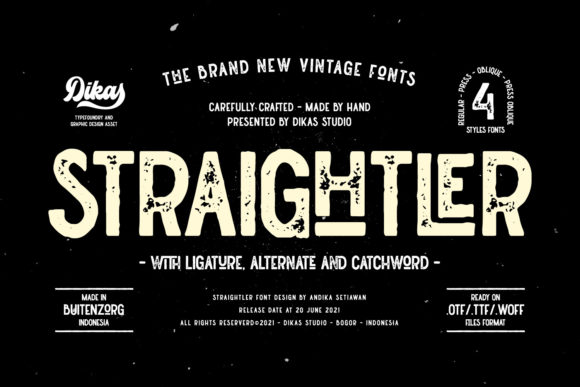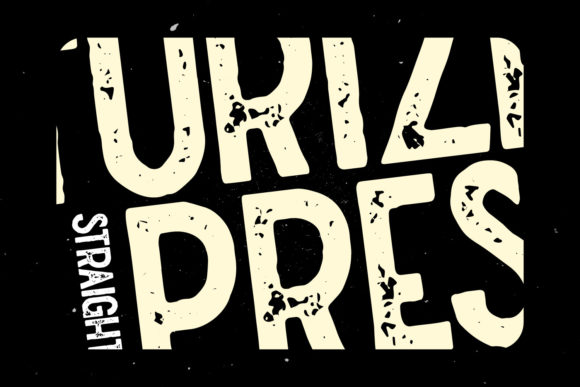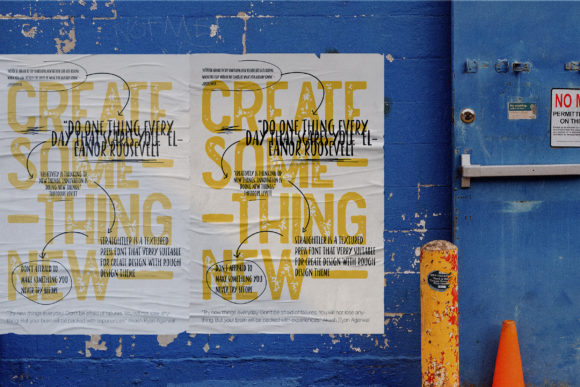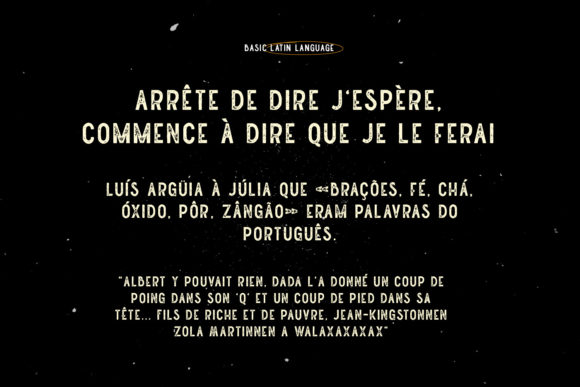
Straightler is a cool, rough styled and assertive display font. This font is imposing and features simple shaped letters, and as a result, it will easily match a wide range of creations that require a distinct touch.
Straightler Font